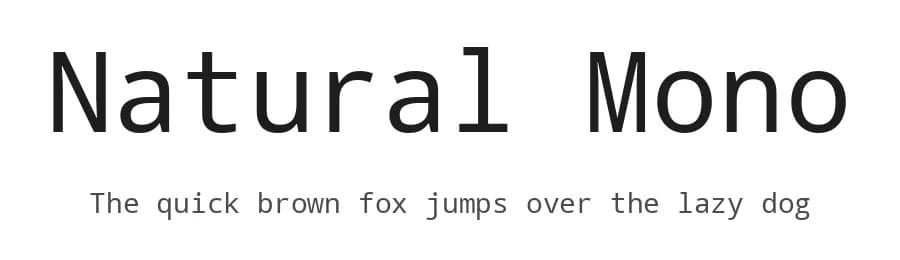
About Natural Mono Font
Natural Mono is a sans-serif font designed by Daymarius. It includes 893 glyphs, a regular weight, TTF (TrueType) format, and 385 languages. Natural Mono is free to download; check the license details on this page before commercial use. Sans-serif fonts like Natural Mono work best for clean body text, user interfaces, branding, and modern layouts.
Natural Mono Specifications
| Font Family | Natural Mono |
| Full Name | Natural Mono Regular |
| Glyph Count | 893 glyphs |
| PostScript Name | NaturalMono-Regular |
| Designer | Vasily Draigo |
- Historical forms
Natural Mono supports 385 languages.
Natural Mono Font is a versatile sans-serif font that works for both headings and body text. Pair it with a contrasting serif or slab serif font to add visual interest and a clear distinction between titles and body copy.
Natural Mono Font
by Daymarius
Natural Mono Font is a sans serif typeface by Daymarius, ideal for logos, invitations, branding, and creative projects.